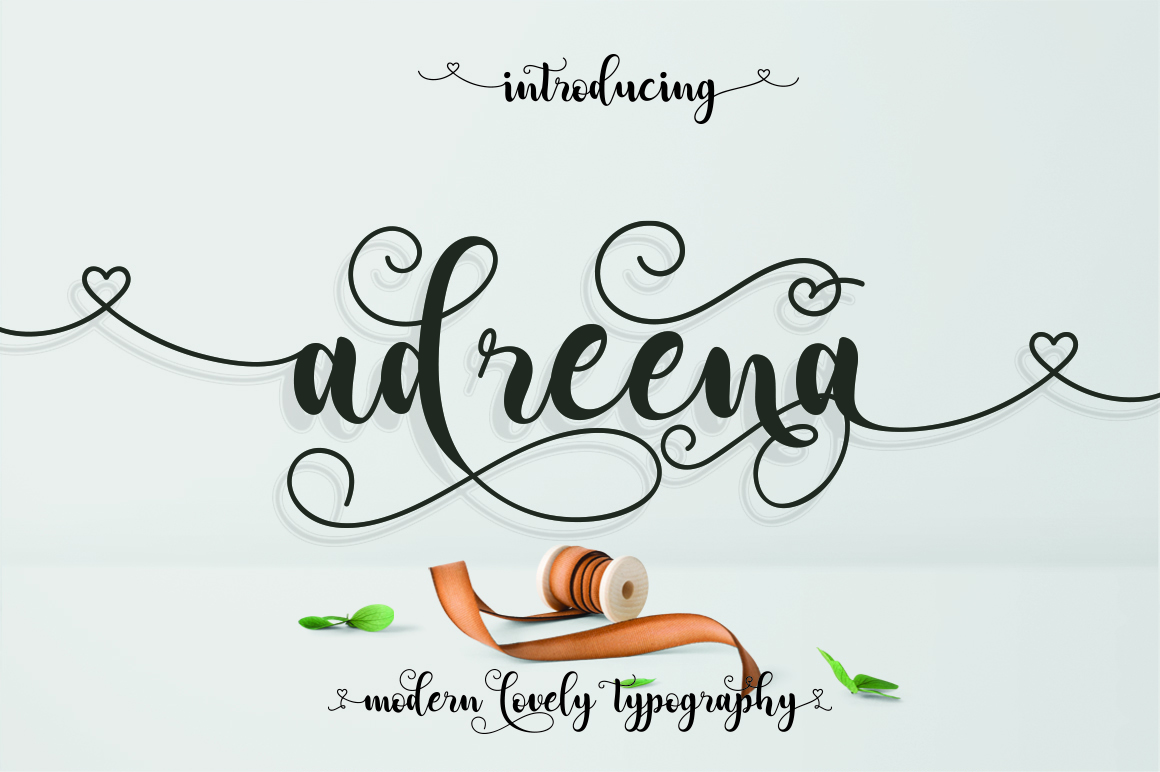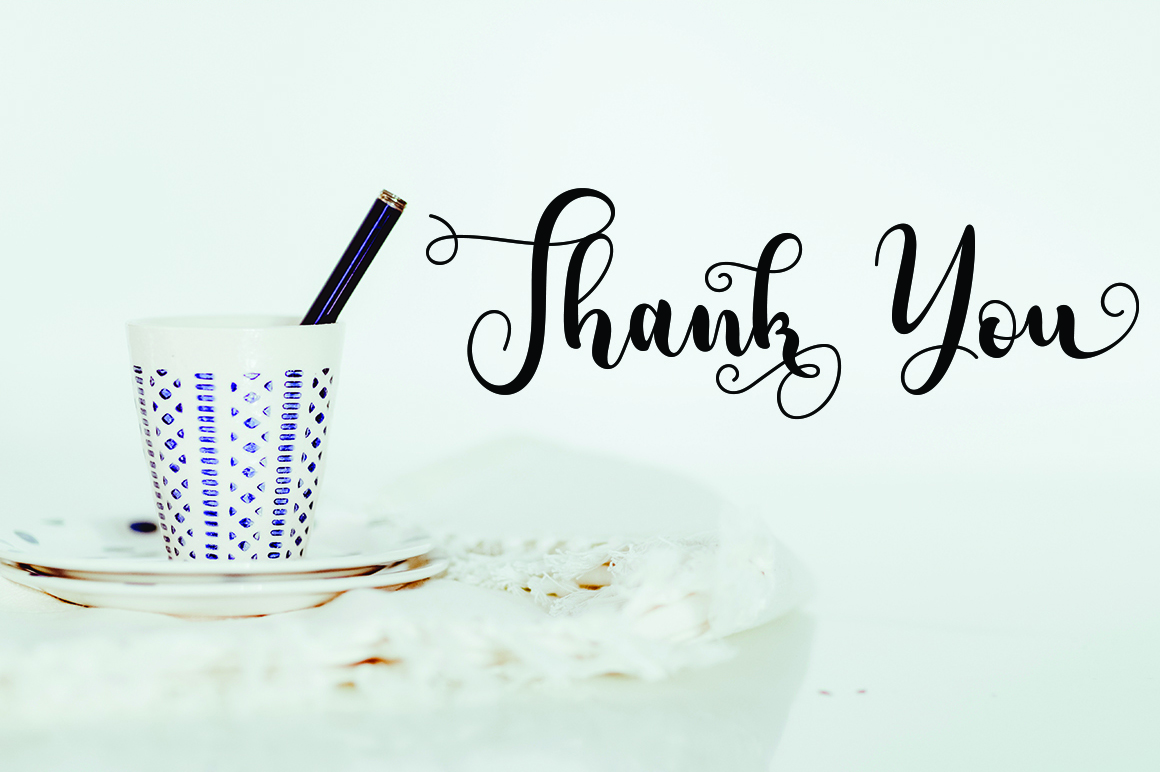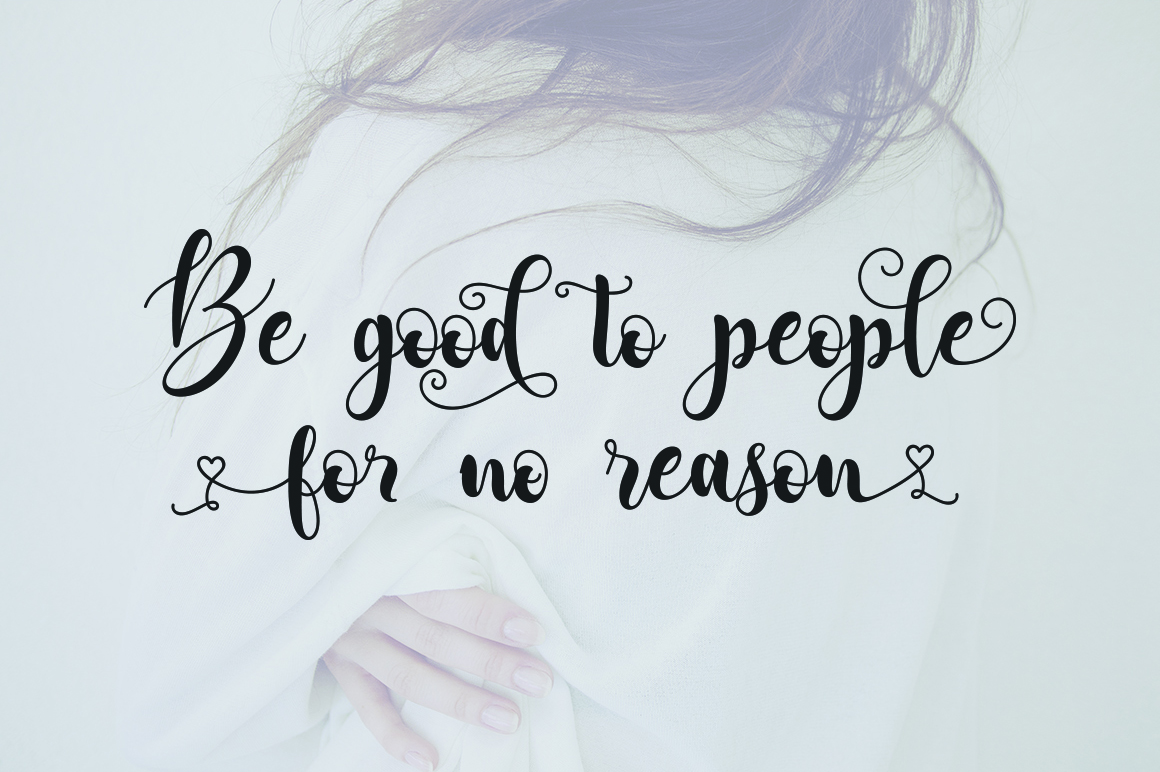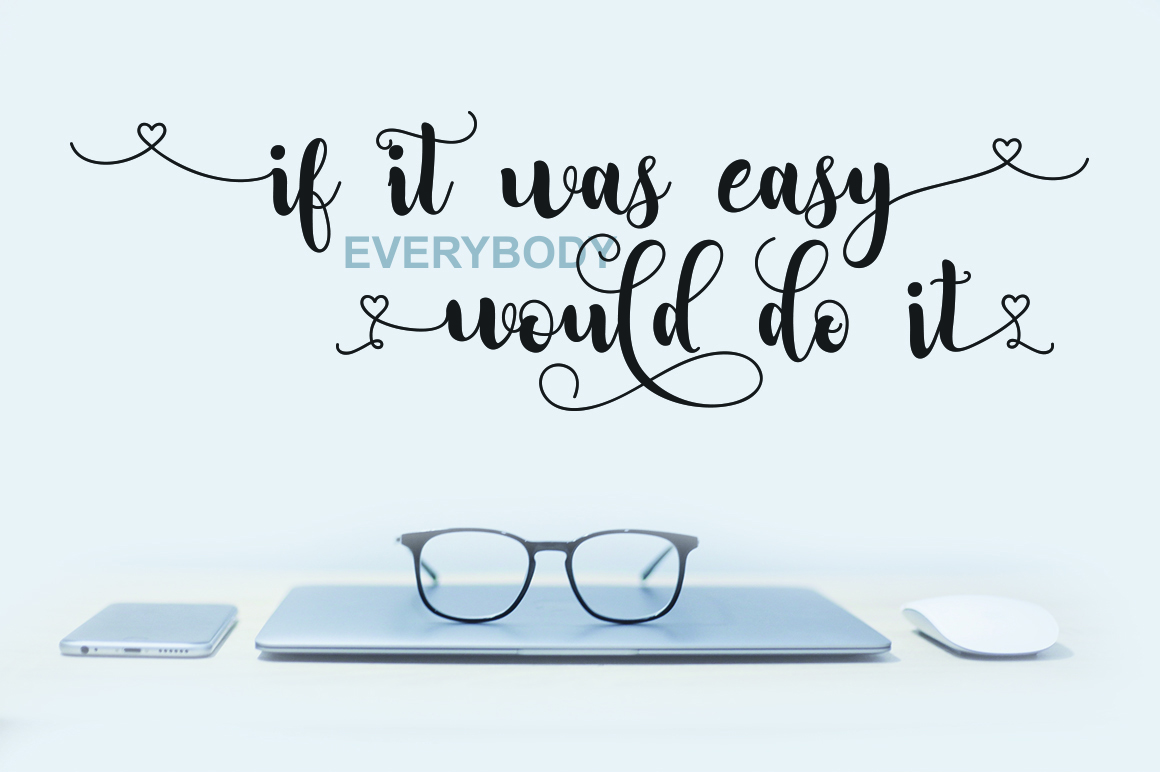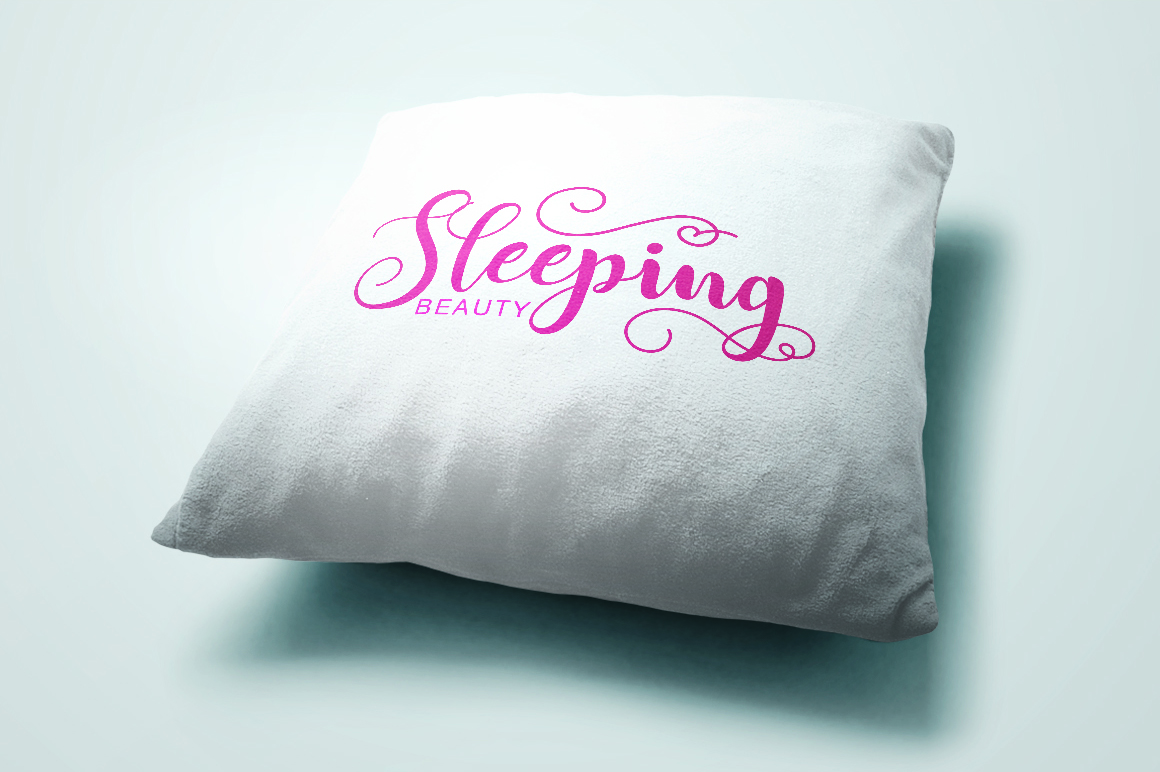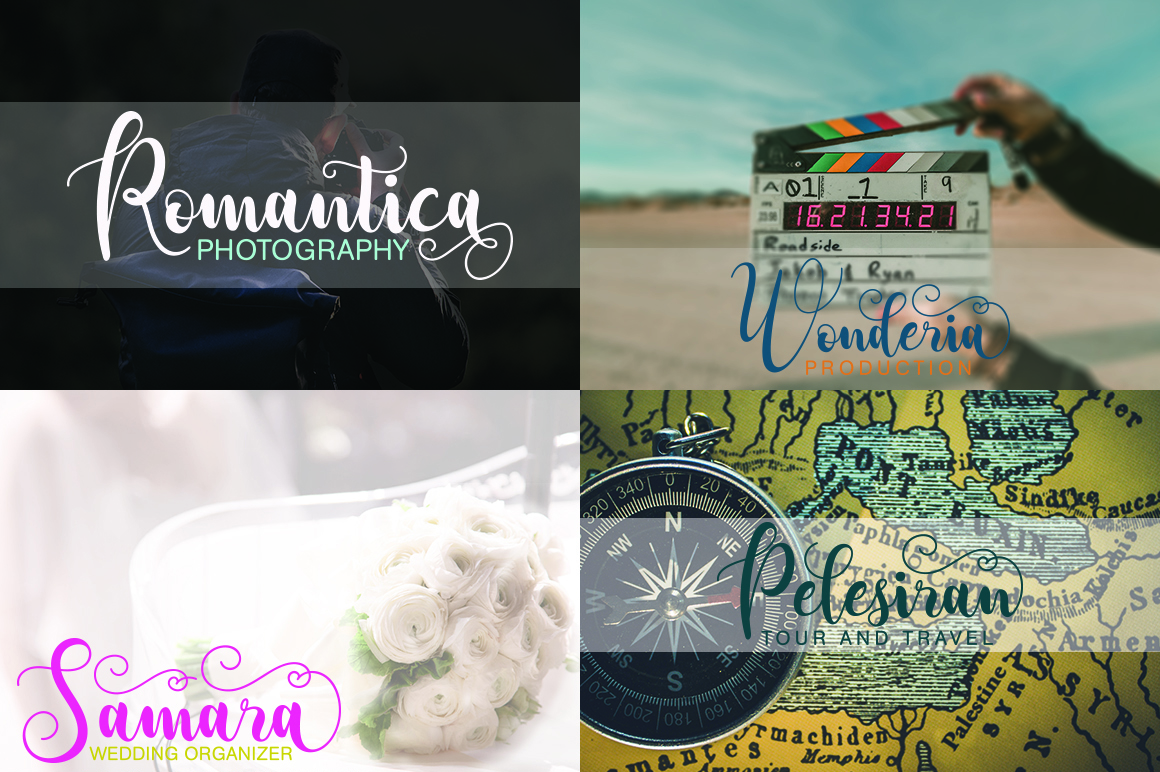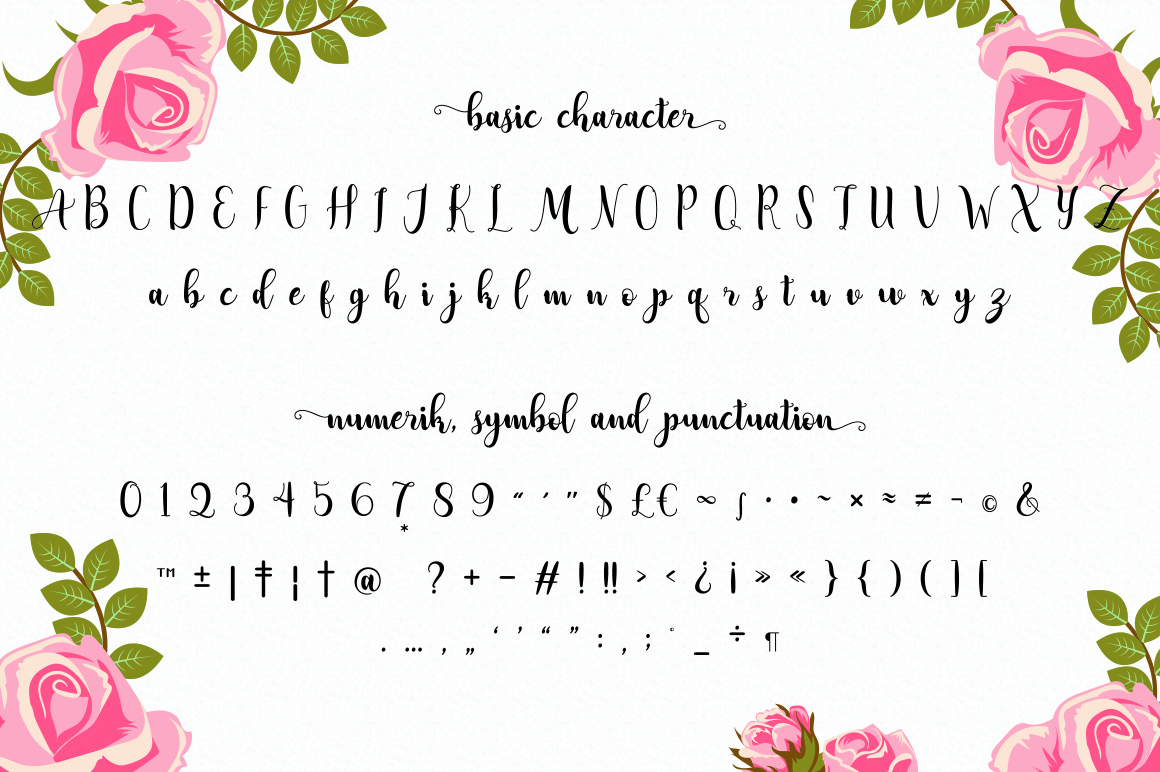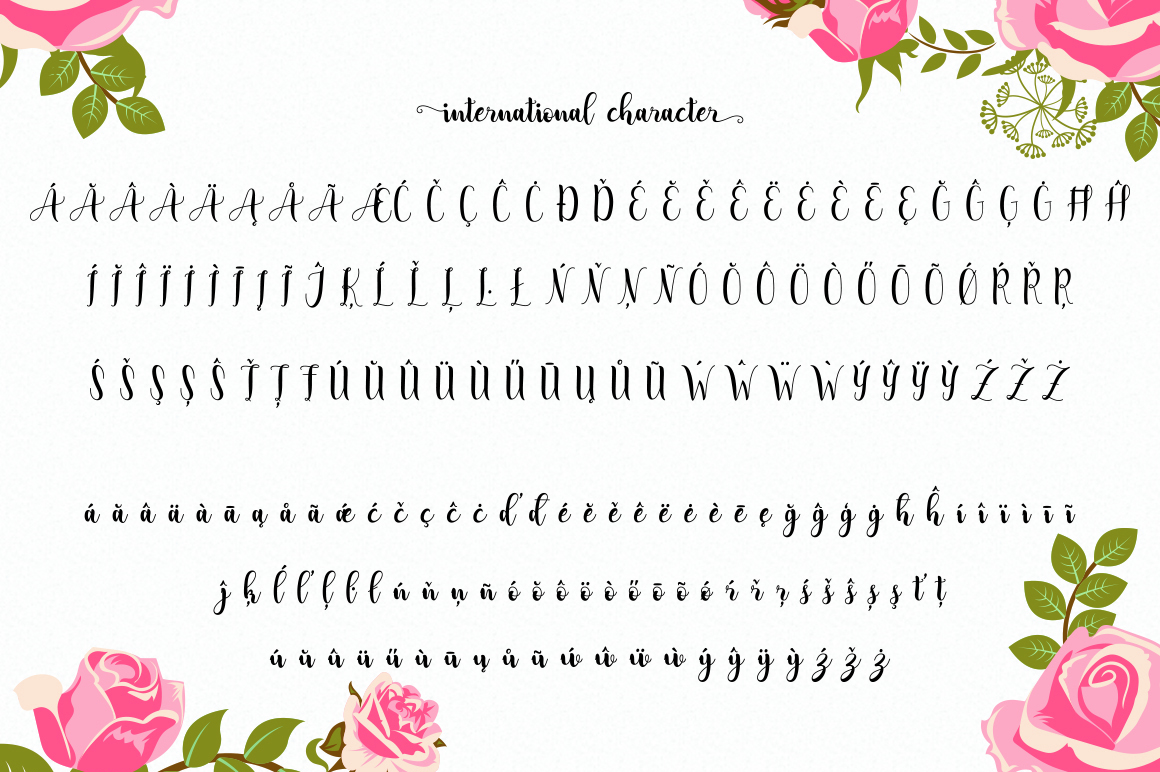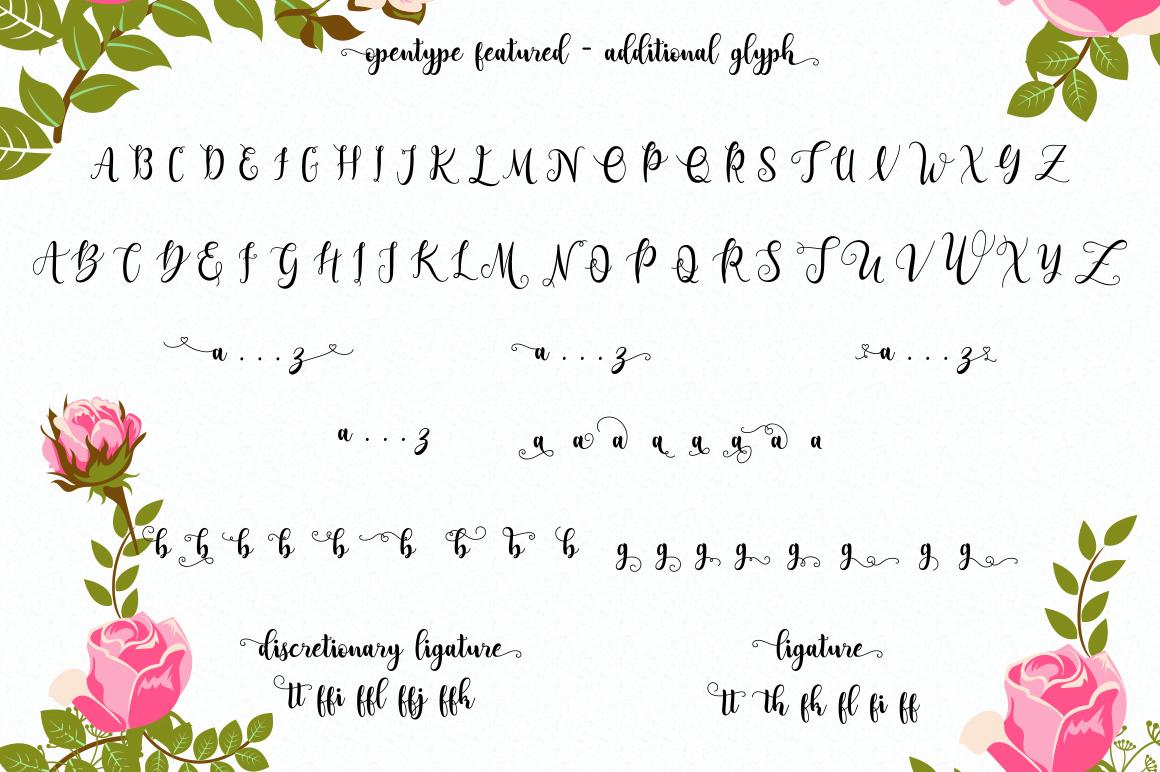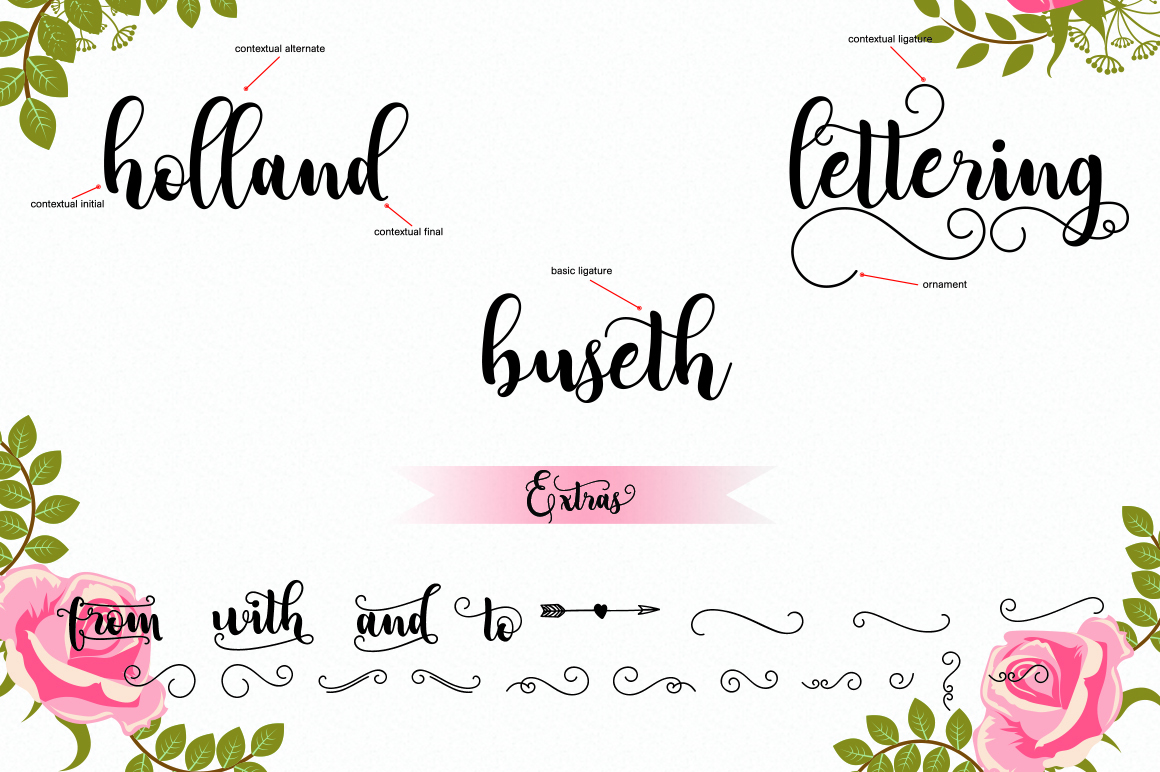
HomeScript FontsAdreena Script Font Script Fonts Adreena Script Font FacebookXPinterestWhatsApp Adreena Script Font Poster 2 Adreena Script Font Poster 3 Adreena Script Font Poster 4 Adreena Script Font Poster 5 Adreena Script Font Poster 6 Adreena Script Font Poster 7 Adreena Script Font Poster 8 Adreena Script Font Poster 9 Adreena Script Font Poster 10 About Adreena Script Font Adreena Script is a fun & playful script suited for creating stunning designs. DOWNLOAD NOW People also explored Unicorn Dreams Font Hajime Debs Simple Plan Kids Peach Triblend Bella Canvas 3413Y House Doodle Font Monolazy Font Shignatture Font Canvas Zoom | Scene Mockup 333 0 TagsAdreena Script Font Previous articleAlistair FontNext articleSunday Walking Street Font LEAVE A REPLY Cancel reply Comment: Please enter your comment! Name:* Please enter your name here Email:* You have entered an incorrect email address! Please enter your email address here Website: Save my name, email, and website in this browser for the next time I comment. Personal Use Free Fat Max Personal Use Free Read more about this font Wordan Personal Use Free Read more about this font Lazy Sunday Personal Use Free Read more about this font Nesto Copper 42 Font Personal Use Free Read more about this font BLOG 5 Fonts That Will Dominate Design Trends in 2026 5 Fonts for 2026 That Will Dominate Design Trends Typography plays a critical role in visual communication, and as we look ahead to 2026, it’s... Using Fonts in Digital Marketing: Tips to Strengthen Your Brand Identity Free vs Paid Fonts: Why Investing in Premium Fonts Is Worth It How to Install and Use Fonts on Windows, macOS, and Web Projects